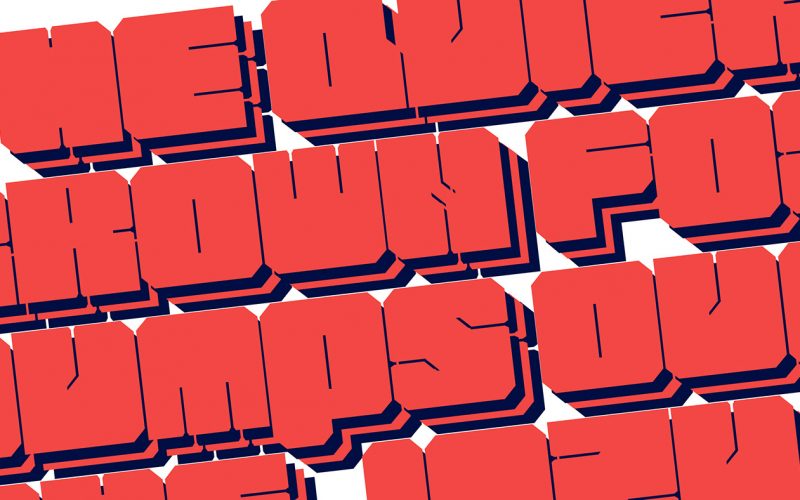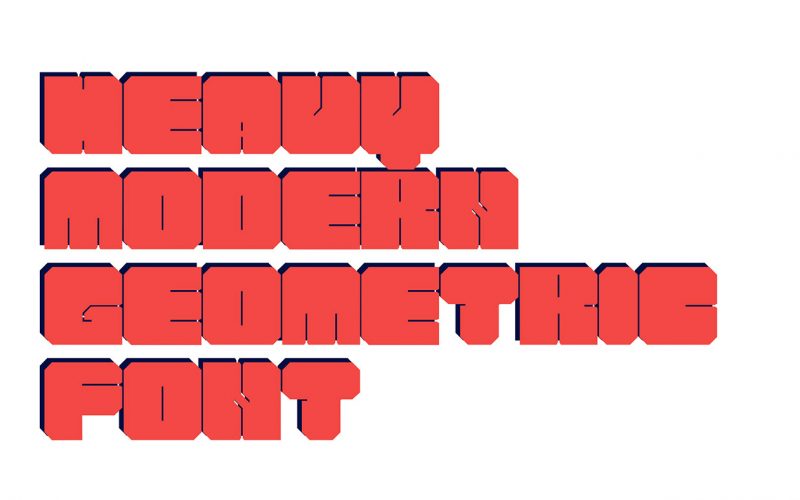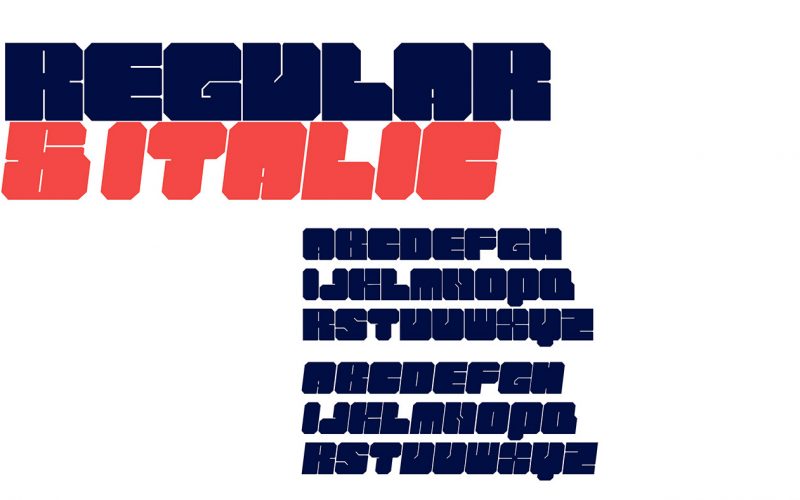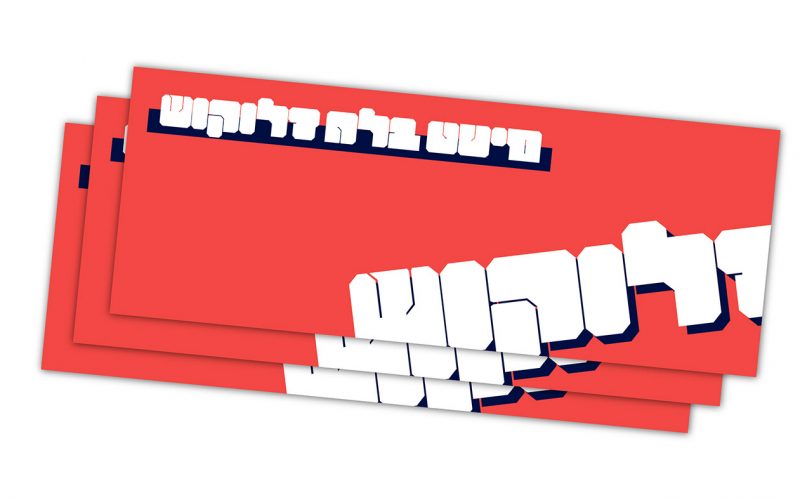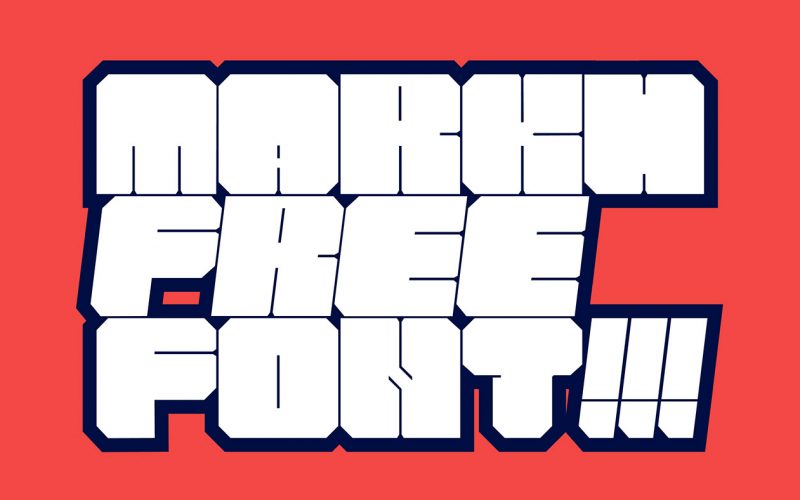
Markh Typeface
Introducing Markh Font. Markh designed and shared by Tikhon Reztcov. Markh is bold, clean sans serif typeface with 2 fonts and multilingual support. It’s a very versatile font that works great in large and small sizes.Markh is perfect for branding projects, home-ware designs, product packaging, magazine headers – or simply as a stylish text overlay to any background image.